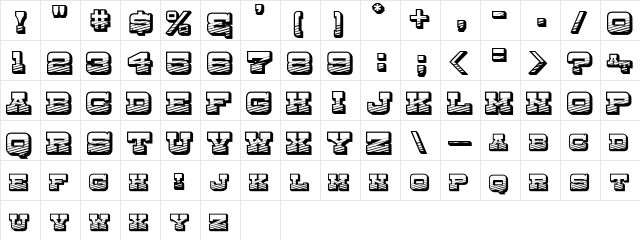
Dry Goods Emporium SmC JL Regular
| Foundry | Jeff's Fonts & Dingbats |
| Designer | Jeffrey N. Levine |
Design Context for Dry Goods Emporium SmC JL Typeface
Dry Goods Emporium SmC JL is a composed and adaptable typeface that performs quietly and consistently across a wide range of design contexts.